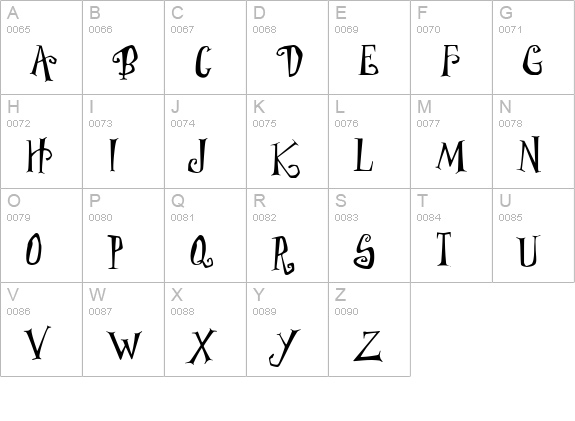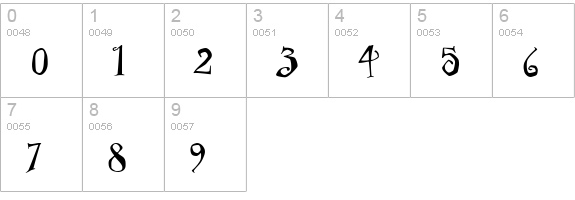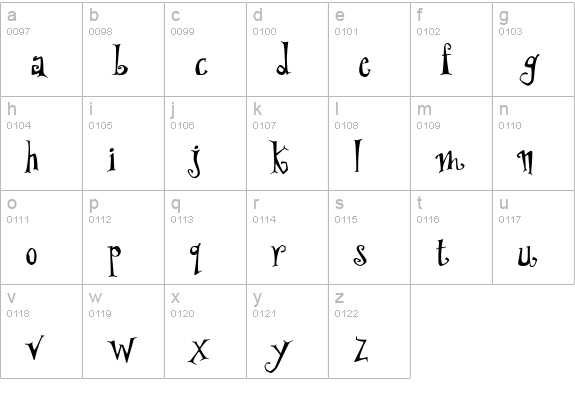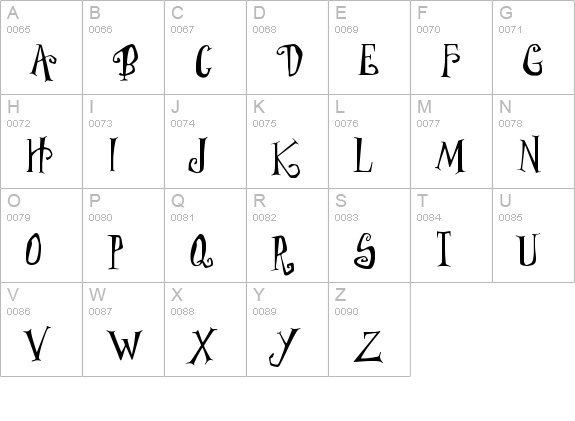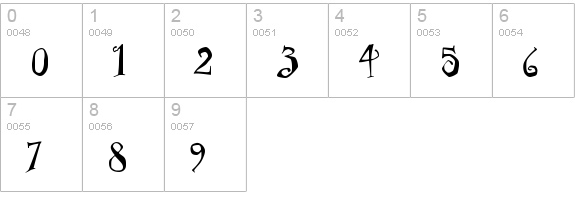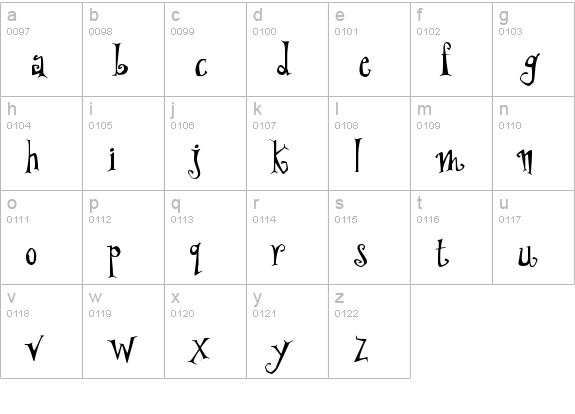
PFWonderlandPro-Regular Font Details
PFWonderlandPro-Regular is the standard, neutral variant in the PFWonderlandPro typeface family \xE2\x80\x94 well suited to general body text, paragraphs, and standard typographic work.
PFWonderlandPro-Regular font is a whimsical and playful typeface that is sure to bring a touch of magic to your designs. With its charming curves and enchanting style, this font is perfect for adding a touch of fantasy to any project. Whether you're designing a children's book, creating a magical logo, or crafting a whimsical poster, PFWonderlandPro-Regular font will bring your ideas to life. Best of all, PFWonderlandPro-Regular font is available for free download at FontsMarket.com. That's right, you can add this delightful font to your collection without spending a dime. So why wait? Download PFWonderlandPro-Regular font today and start creating enchanting designs that will captivate your audience.